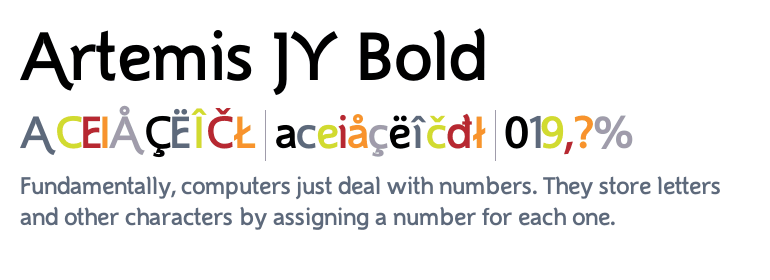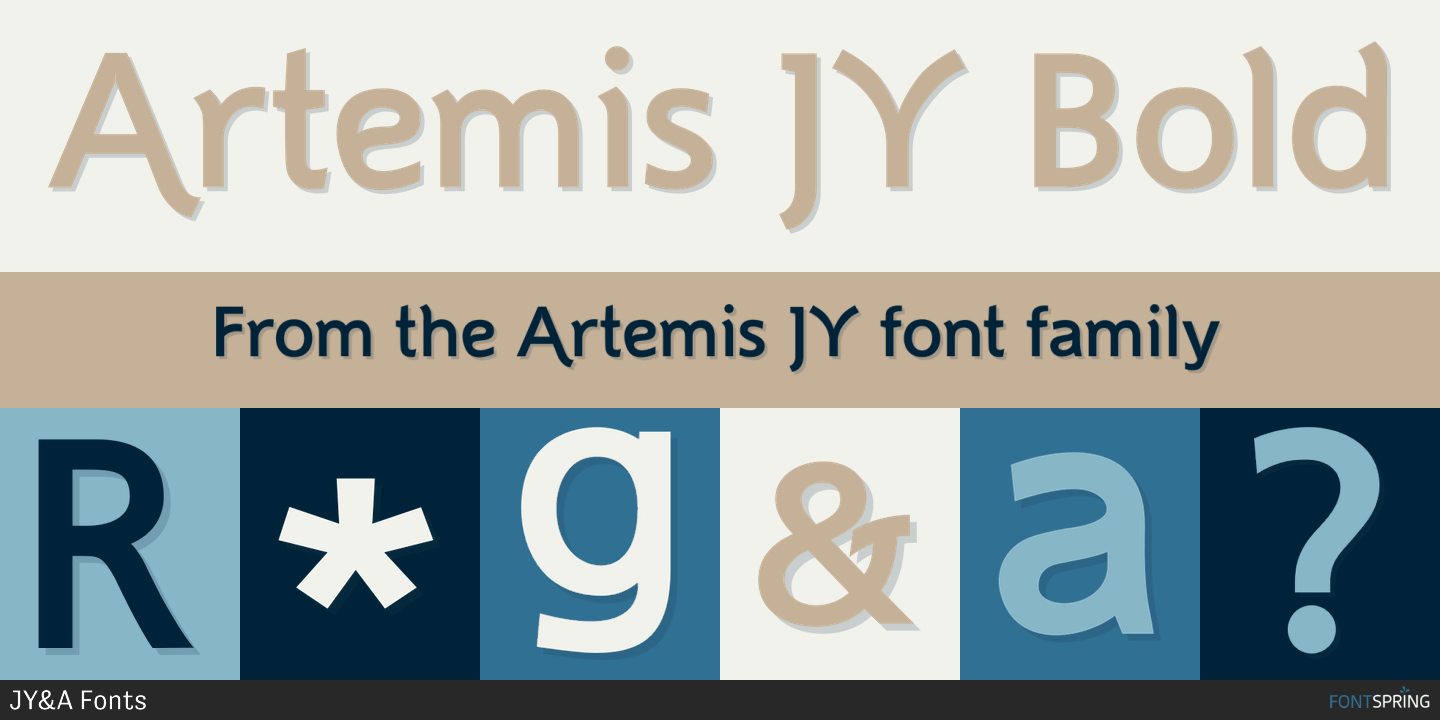
Artemis JY
About Artemis JY
Mark Geard\’s Artemis is a contemporary humanist sans serif. Its flourishes and unusual cuts give the typefaces huge distinctiveness?yet they remain highly legible. Glyphs begin with something that resembles a serif, leading the eye across their body and…